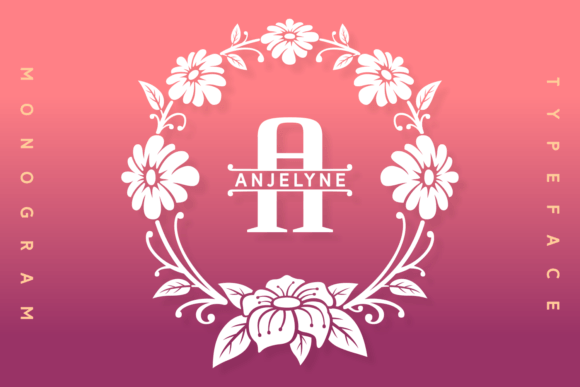
Introduction to Anjelyne Font
Anjelyne is a floral monogram decorative font.
These elegant letters are surrounded by beautiful flowers and are perfect for creating decorative designs You can use them for fabric prints, cards, invitations, logos, and more.